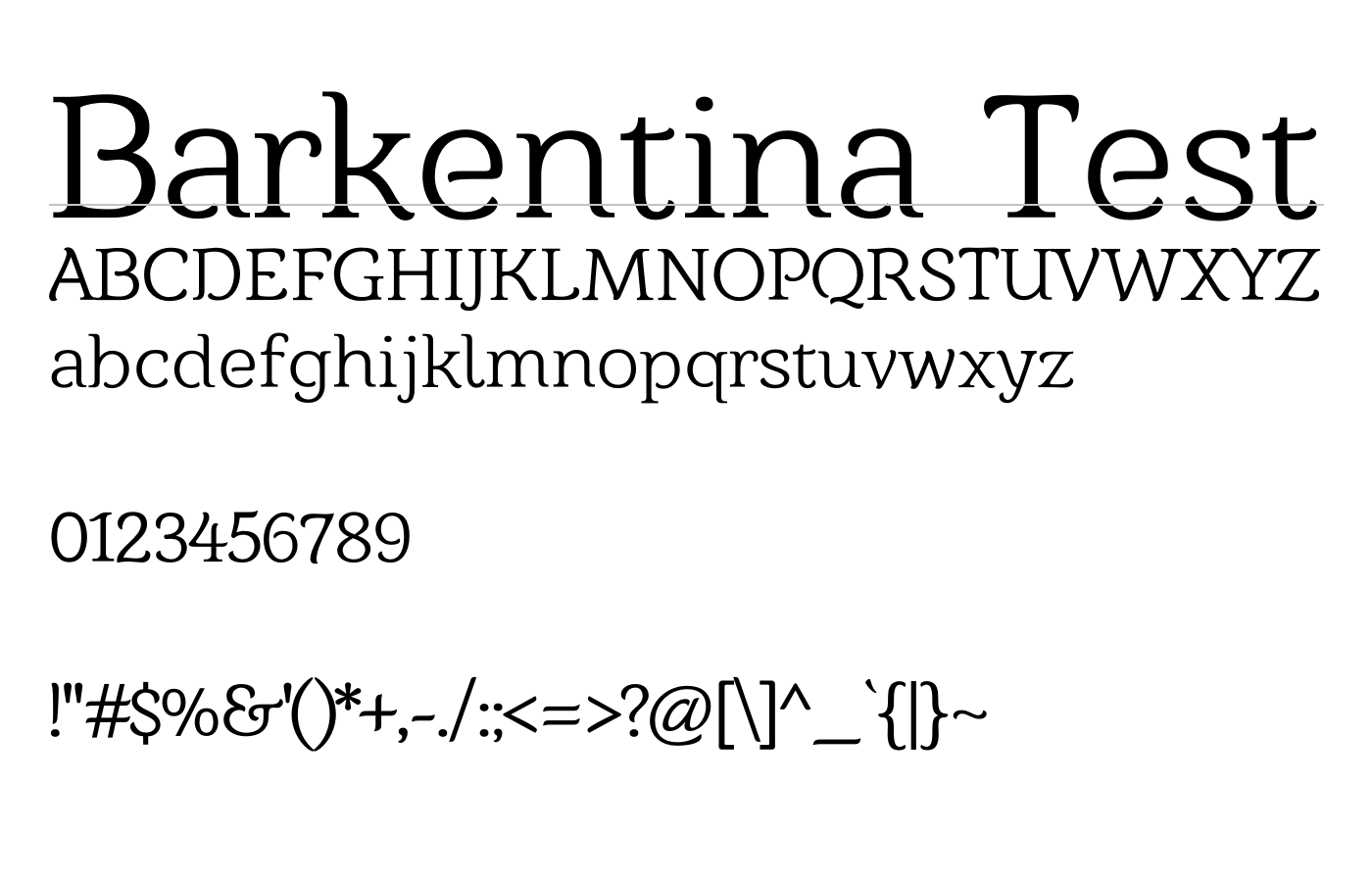
Barkentina 1 is a distinctive serif font that combines classic elegance with a hint of playfulness through its slender, bracketed serifs and moderate stroke contrast. Its balanced proportions and friendly letterforms make it ideal for editorial use, branding, and packaging where a refined yet approachable feel is desired. This font works well in headlines or body text, adding a touch of sophistication while remaining highly readable.
| Font family | Barkentina 1 Font |
| Languages supported | Latin, Cyrillic, Symbols, Greek |
| Designer | Kiril Zlatkov |